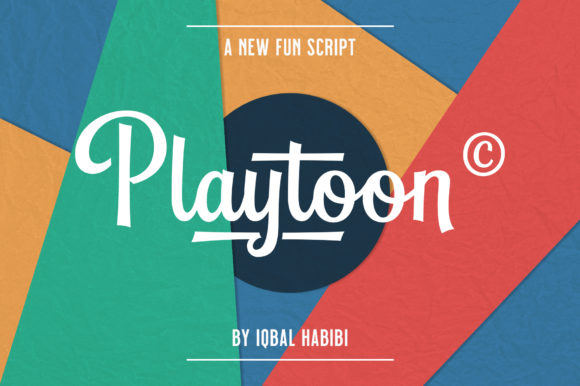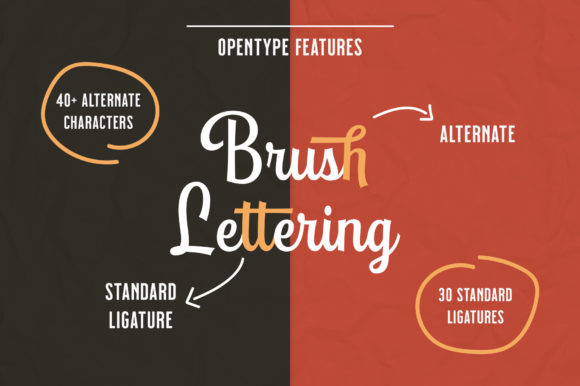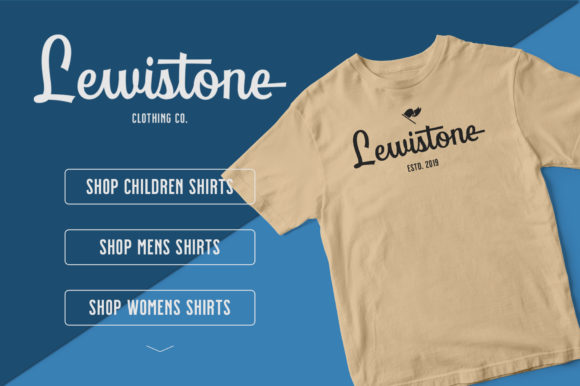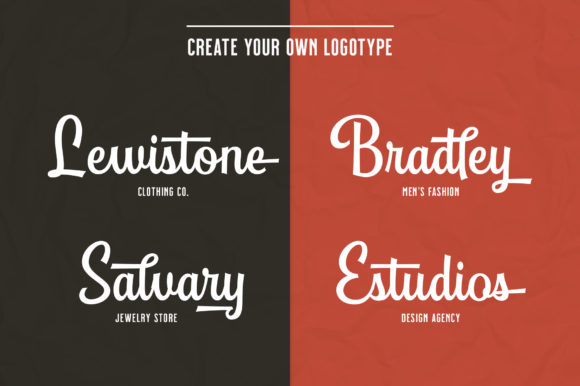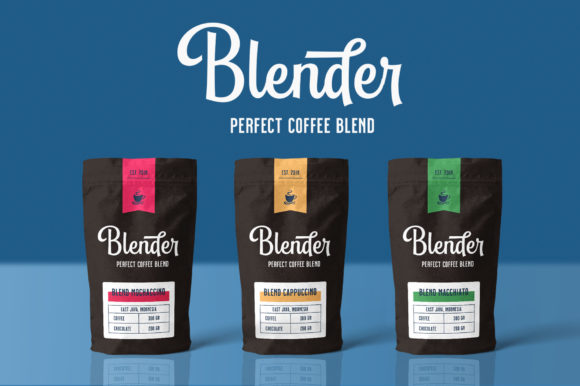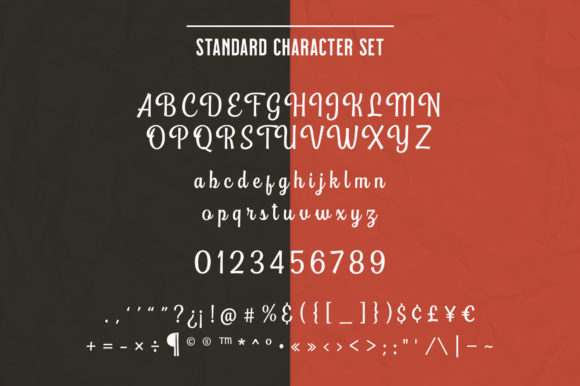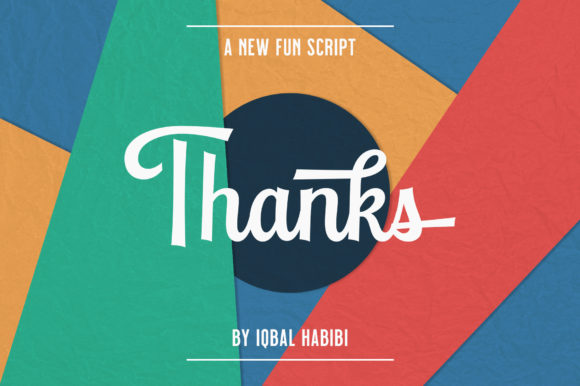
Playtoon Font
About Playtoon Font
Playtoon is a fun and casual handwritten font with an incredibly friendly feel. Whether you’re looking for fonts for Instagram or calligraphy scripts for DIY projects, Playtoon will turn any creative idea into a true piece of art!